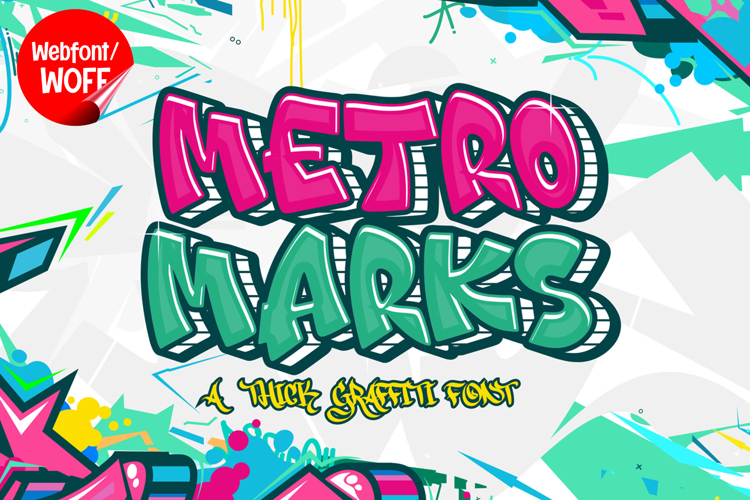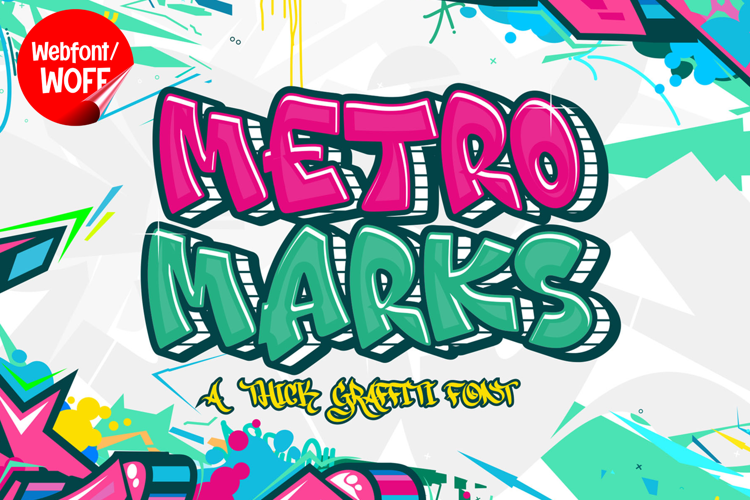
Metro Mark | Modern Display Webfont for Clean Websites
Metro Mark is a modern display webfont designed to deliver a clean, bold, and versatile typographic style for contemporary website design. With its balanced structure and refined letterforms, this font offers a professional look that works across a wide range of digital projects. It is an excellent choice for designers who need a reliable and visually strong font that enhances clarity while maintaining a modern aesthetic.
Metro Mark features a complete set of uppercase characters designed with clean lines and well-proportioned shapes. The structured design makes it ideal for headlines, banners, hero sections, and featured content where strong readability and visual presence are essential. Its modern appearance helps establish a clear hierarchy, guiding users through the content with ease.
In addition to letters, the font includes numbers and punctuation, allowing flexible usage across various website elements. It works well for product displays, pricing sections, navigation menus, promotional content, and informational layouts. Each character maintains consistency in style, ensuring a cohesive and professional visual identity throughout the design.
With multilingual support, Metro Mark includes a wide range of accented characters, making it suitable for international websites and global audiences. This allows content to be displayed clearly across different languages while maintaining a unified and modern typographic style.
The clean and modern display style of Metro Mark makes it especially suitable for business websites, digital agencies, portfolios, e-commerce platforms, and technology-focused projects. Its simplicity allows it to blend seamlessly with various design styles while still providing a strong and confident presence. It is also a great choice for branding that emphasizes clarity and professionalism.
Despite its minimal and clean design, Metro Mark is carefully crafted to remain visually engaging. The spacing and proportions are optimized to ensure readability, particularly in display sizes and short text applications. This makes it effective for both bold headings and structured content elements.
Metro Mark is a webfont that combines modern design with digital performance and versatility. Its clean lines, balanced structure, and strong readability create a dependable typographic solution for website design. For projects that require a modern, clear, and professional font, Metro Mark delivers a polished and effective result.